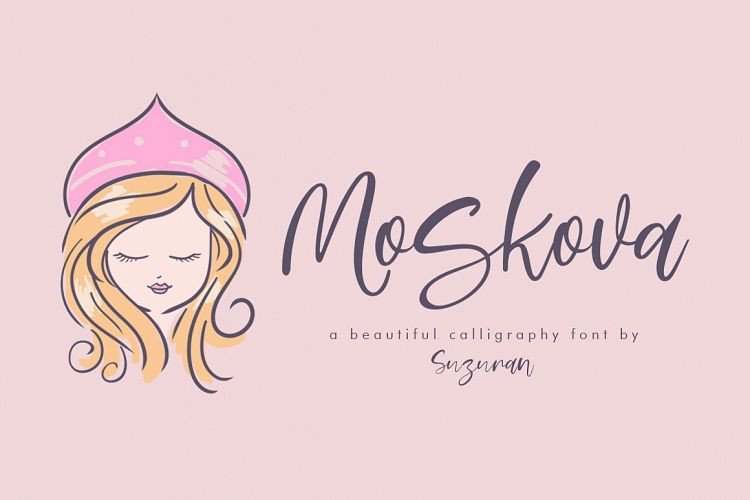
Moskova Script Font
A new beautiful calligraphy font by Suzuran, a bold script that will stands out from the crowd! Perfect to be used as logotype, badge and label! Introducing Moskova Font. Moskova script, a font that is very fresh and unique style handmade + bonus font, Night in Kansas & Free Pen Script for your project. Moskova script is perfectly suited to logo, stationery, poster, apparel, branding, wedding invitation, card, tagline, layout design, and much more.